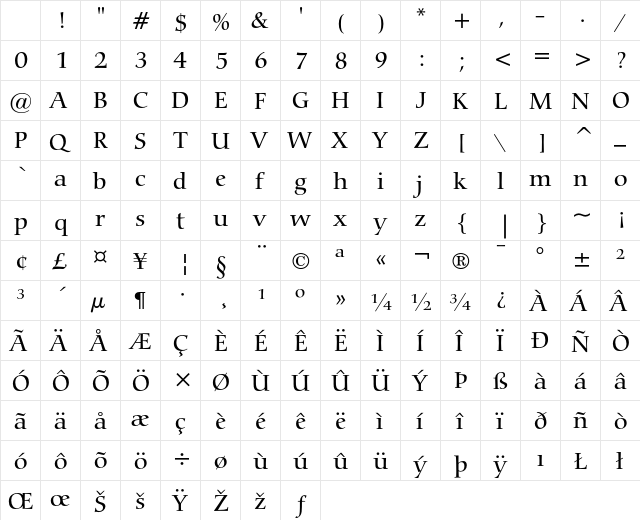
Complete Bitstream Carmina Medium glyph index. Displaying only characters natively supported by Bitstream Carmina Medium font.
Bitstream Carmina is a composed and adaptable typeface that performs quietly and consistently across a wide range of design contexts.